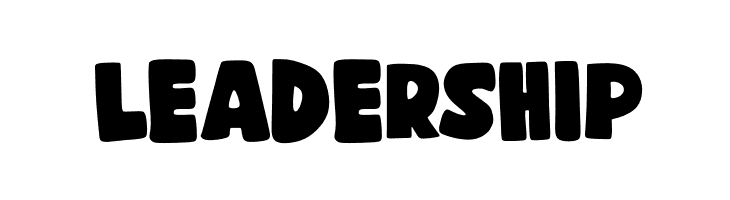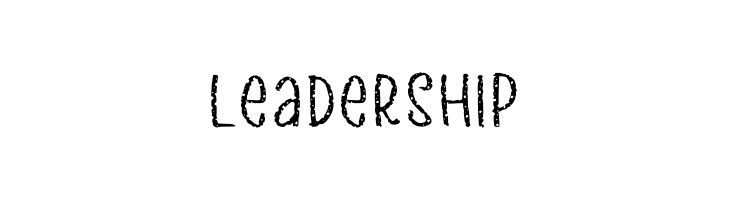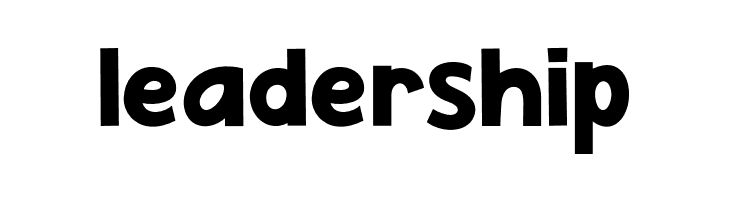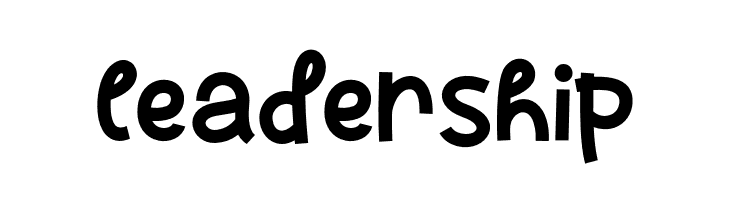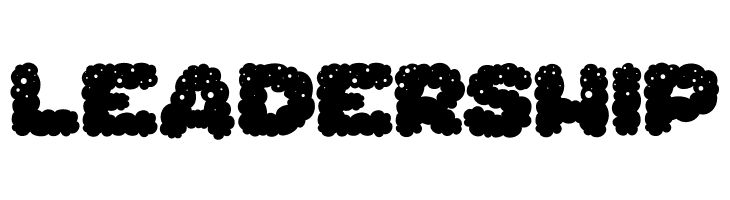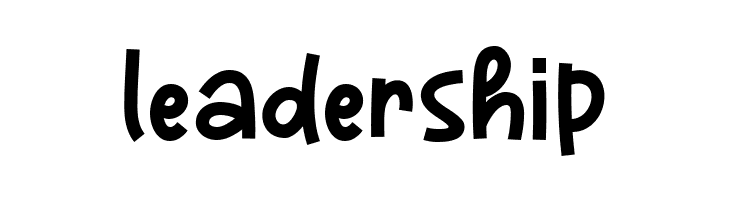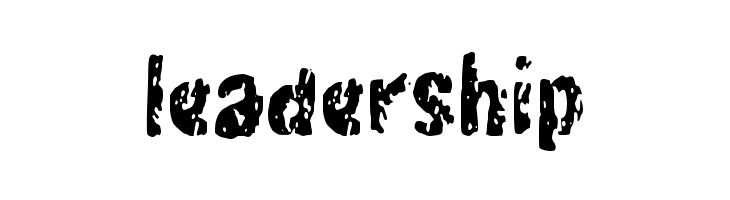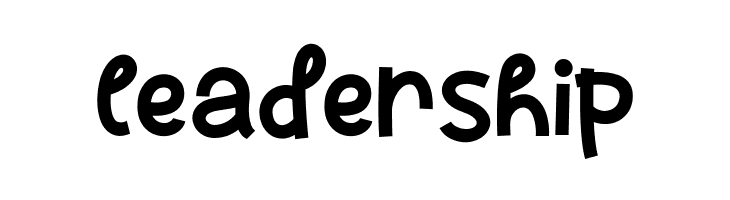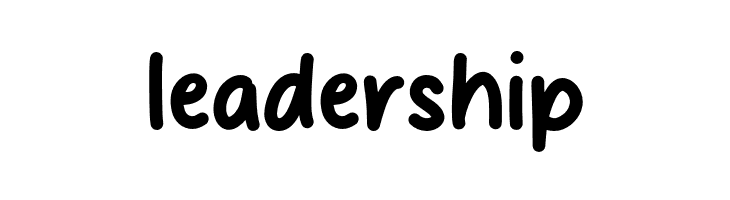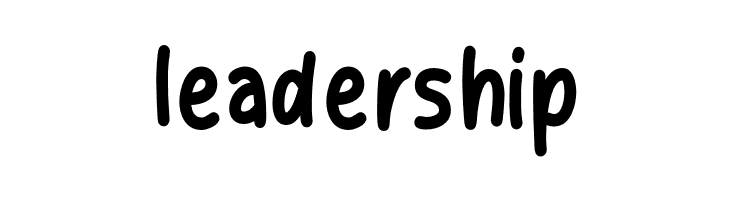
Tall, thin monoline handwritten script with playful, casual style.
A thin, tall, playful sans-serif with a handwritten touch.
A playful, cheese-themed decorative font with bold, hole-filled characters.
A playful, bold, and rounded font with a hand-drawn, whimsical style.
A playful, bold, and rounded font with a hand-drawn feel.
A playful, bold font with rounded, hand-drawn characters.
A bold, playful typeface with thick, rounded characters and a hand-drawn feel.
A playful, hand-drawn font with a whimsical and friendly style.
An elegant and flowing script font with ornate uppercase letters and delicate embellishments.
A bold, cursive font with a lively, handwritten style.
A playful, handwritten font with rounded edges and a casual style.
A playful, cloud-like font with bold, rounded characters.
A playful, cheese-inspired font with bold, irregular outlines and cutouts.
A playful, hand-drawn font with rounded, bold characters and a whimsical style.
A playful, textured font with a hand-drawn, grater-like effect.
A playful, cheese-inspired font with bold, irregular characters.
A playful script font with cheese-like holes and a whimsical, handwritten style.
A playful, bold font with rounded, thick strokes and a whimsical touch.
A playful, rounded font with bold, smooth curves and a friendly vibe.
A bold, handwritten font with a playful and casual style.
A playful, bold font with rounded, bubble-like characters ideal for fun and inviting designs.
A playful, rounded font with a hand-drawn, casual style.
A bold, playful typeface with exaggerated curves and a whimsical style.
A bold, playful font with rounded, cartoonish characters and a hand-drawn feel.
A playful, stencil-like font with bold, irregular shapes and a modern, artistic style.
A playful, bold, hand-drawn font with a whimsical, comic-like style.
A playful, bold font with thick, rounded strokes and a whimsical style.
A bold, playful font with rounded, hand-drawn characteristics.
A playful, bold font with a hand-drawn, whimsical style.
A pixelated, retro-style font inspired by early digital displays.